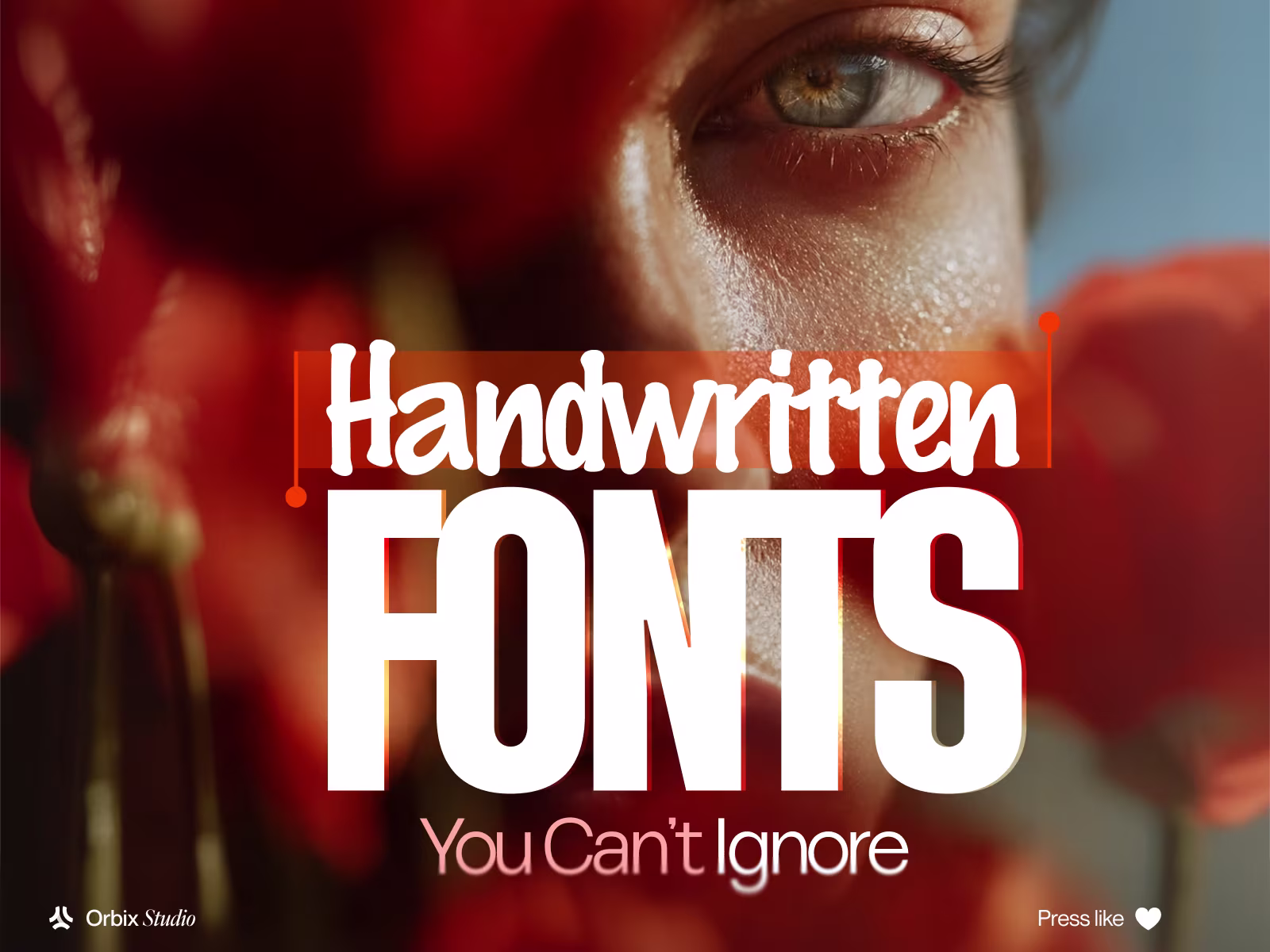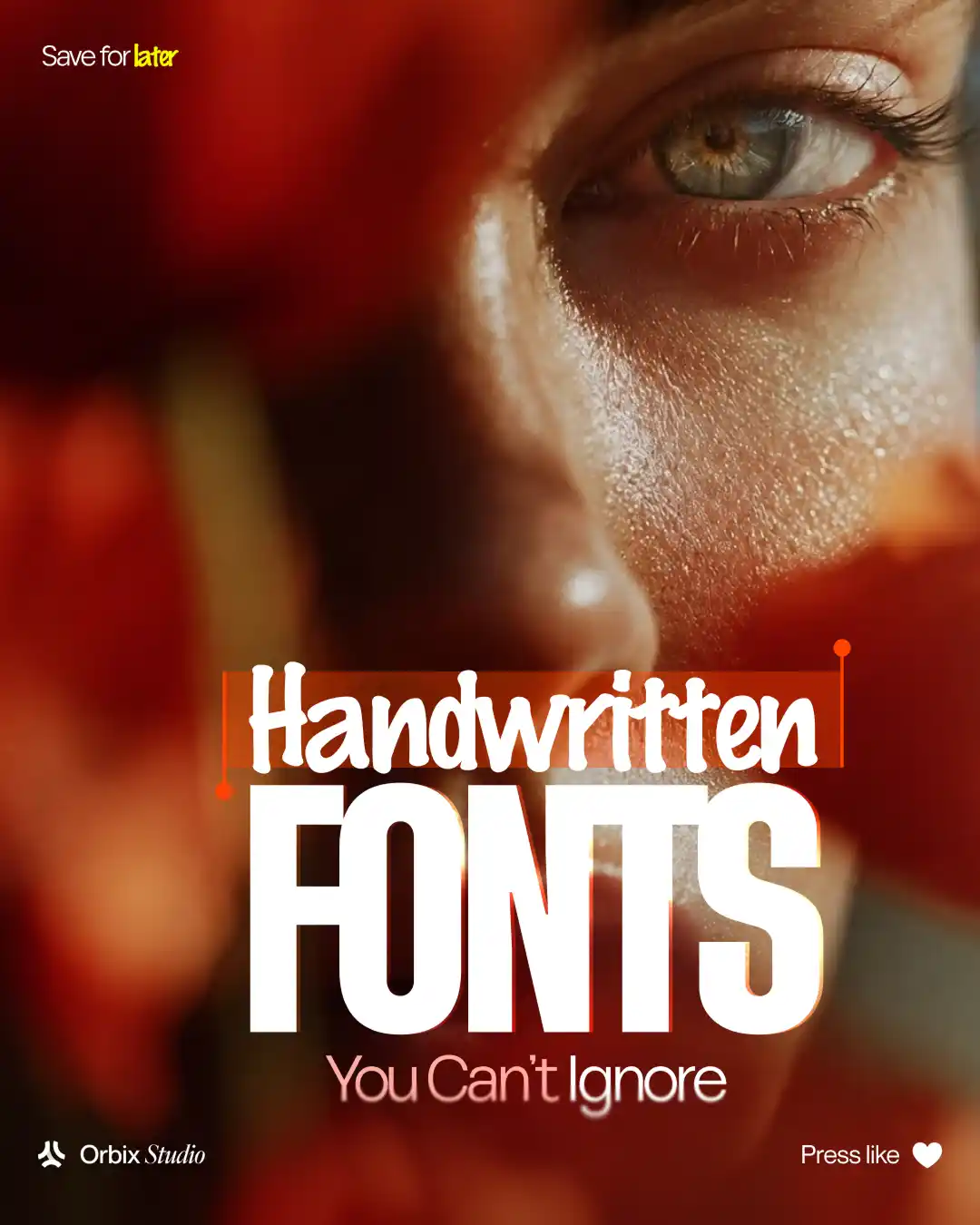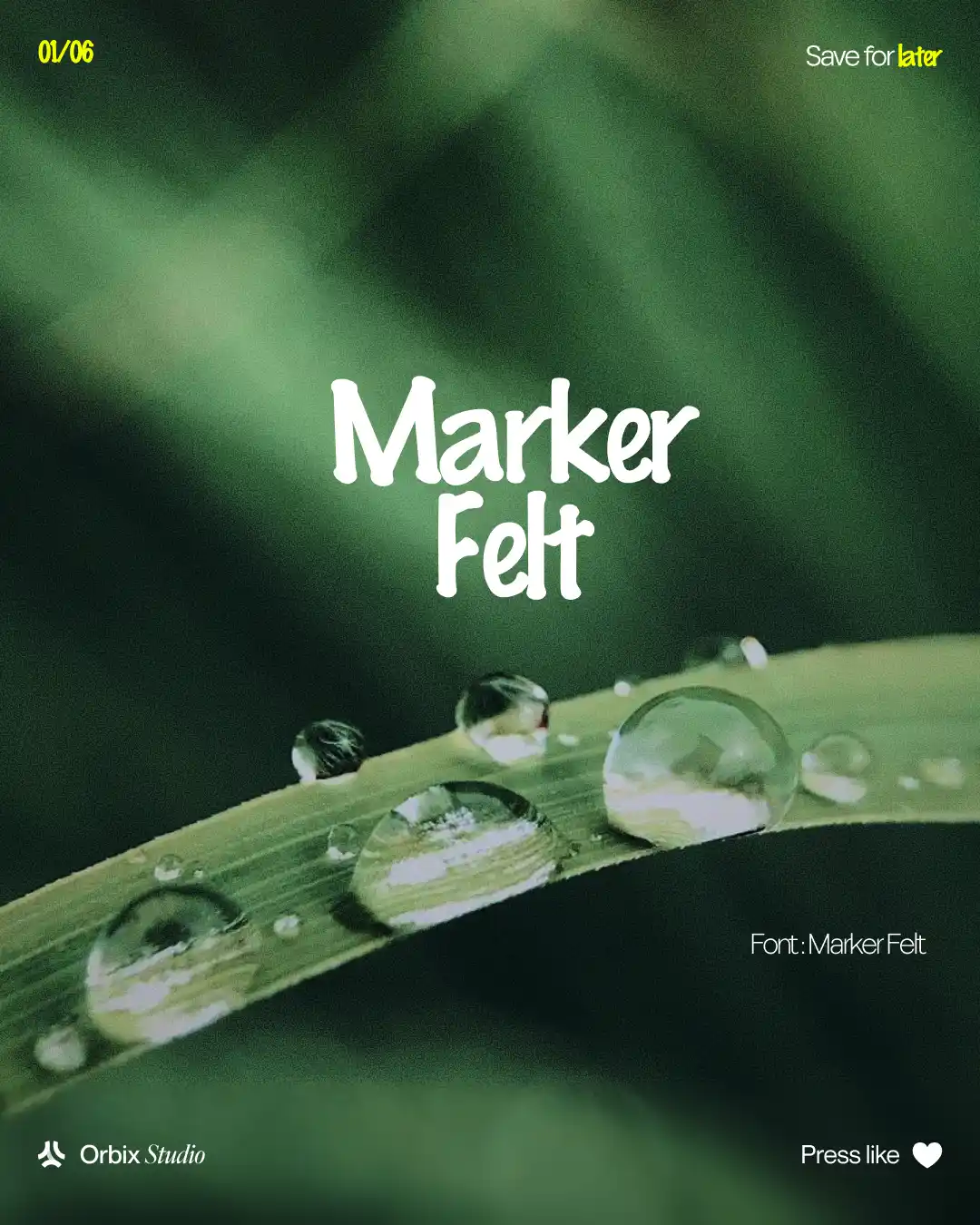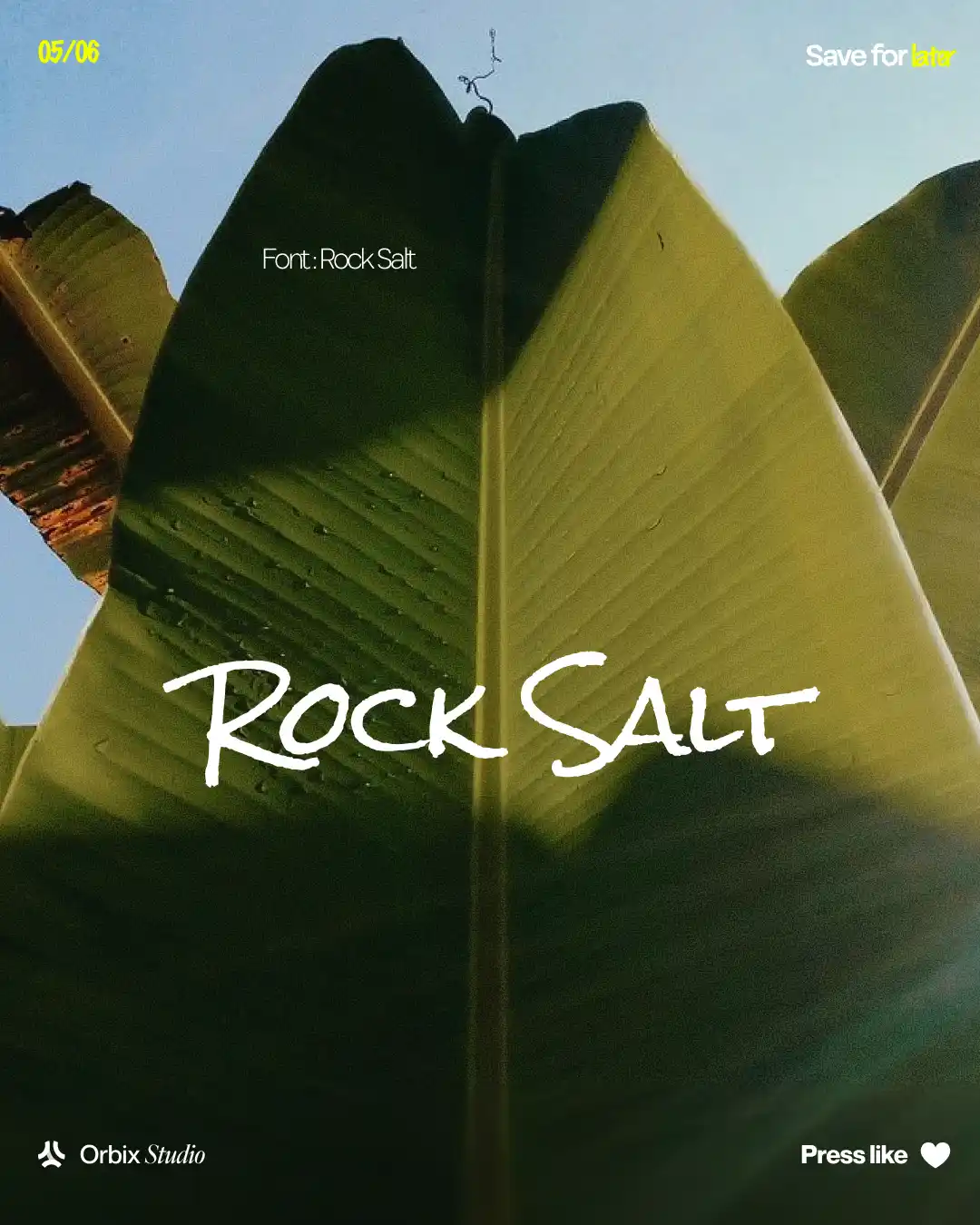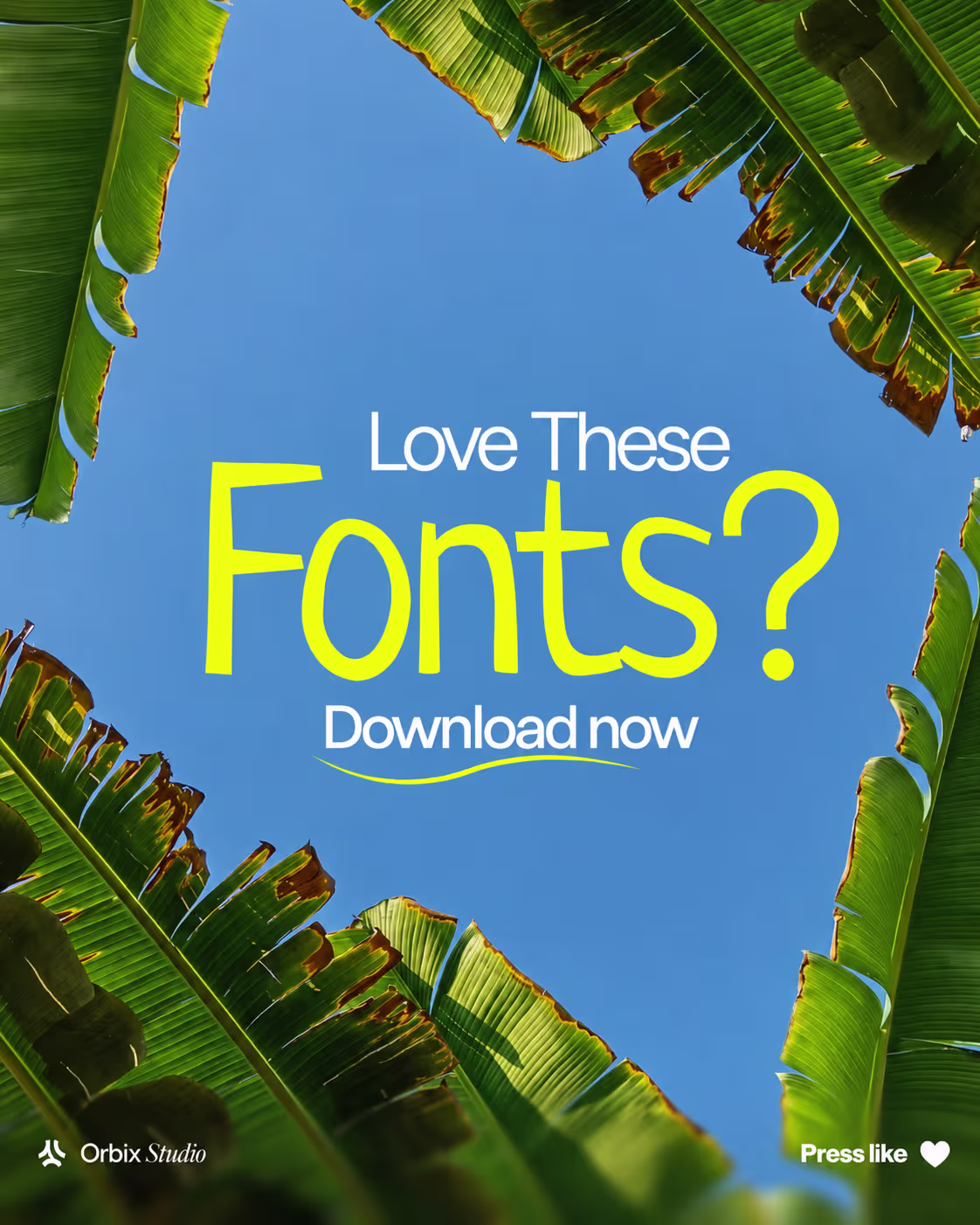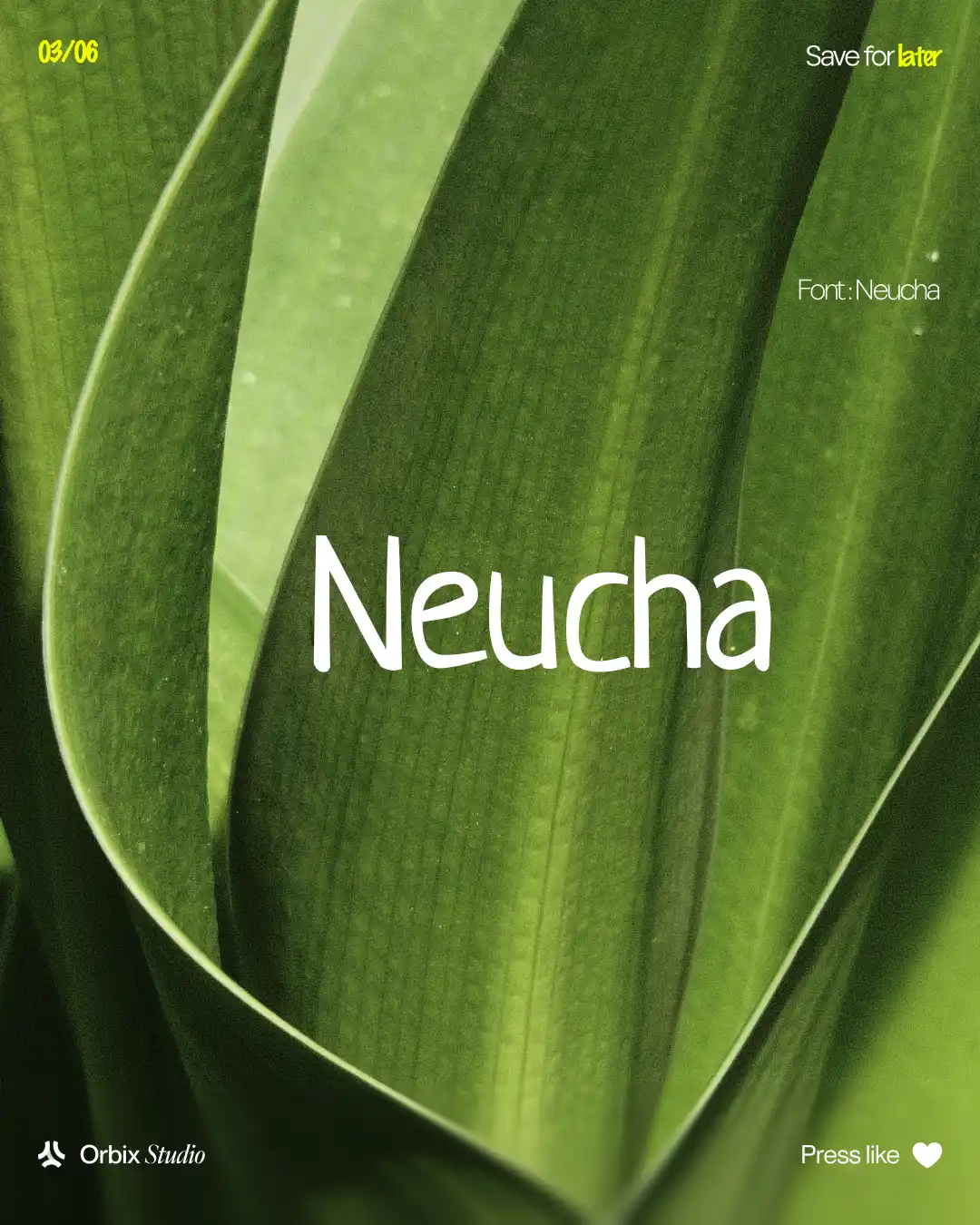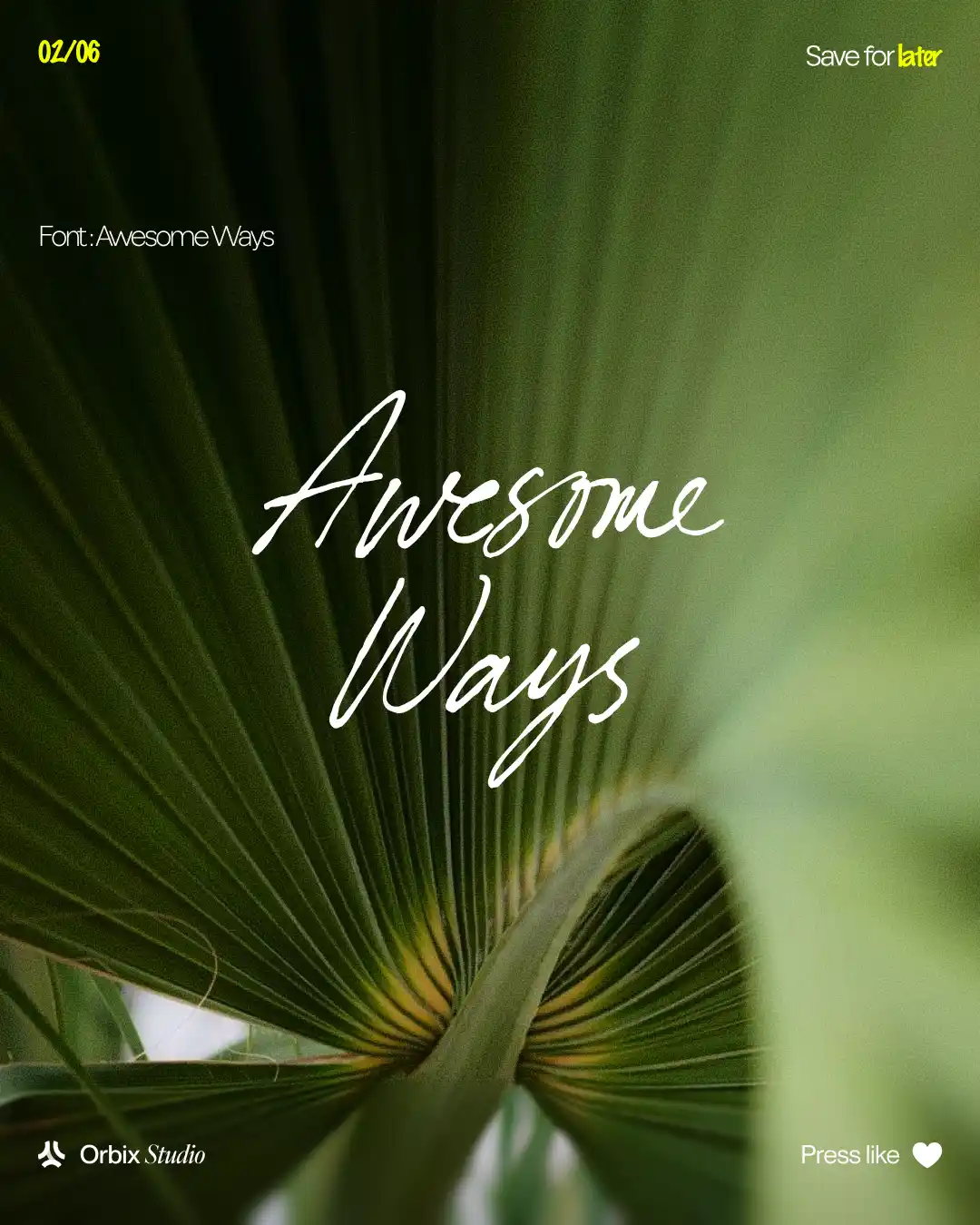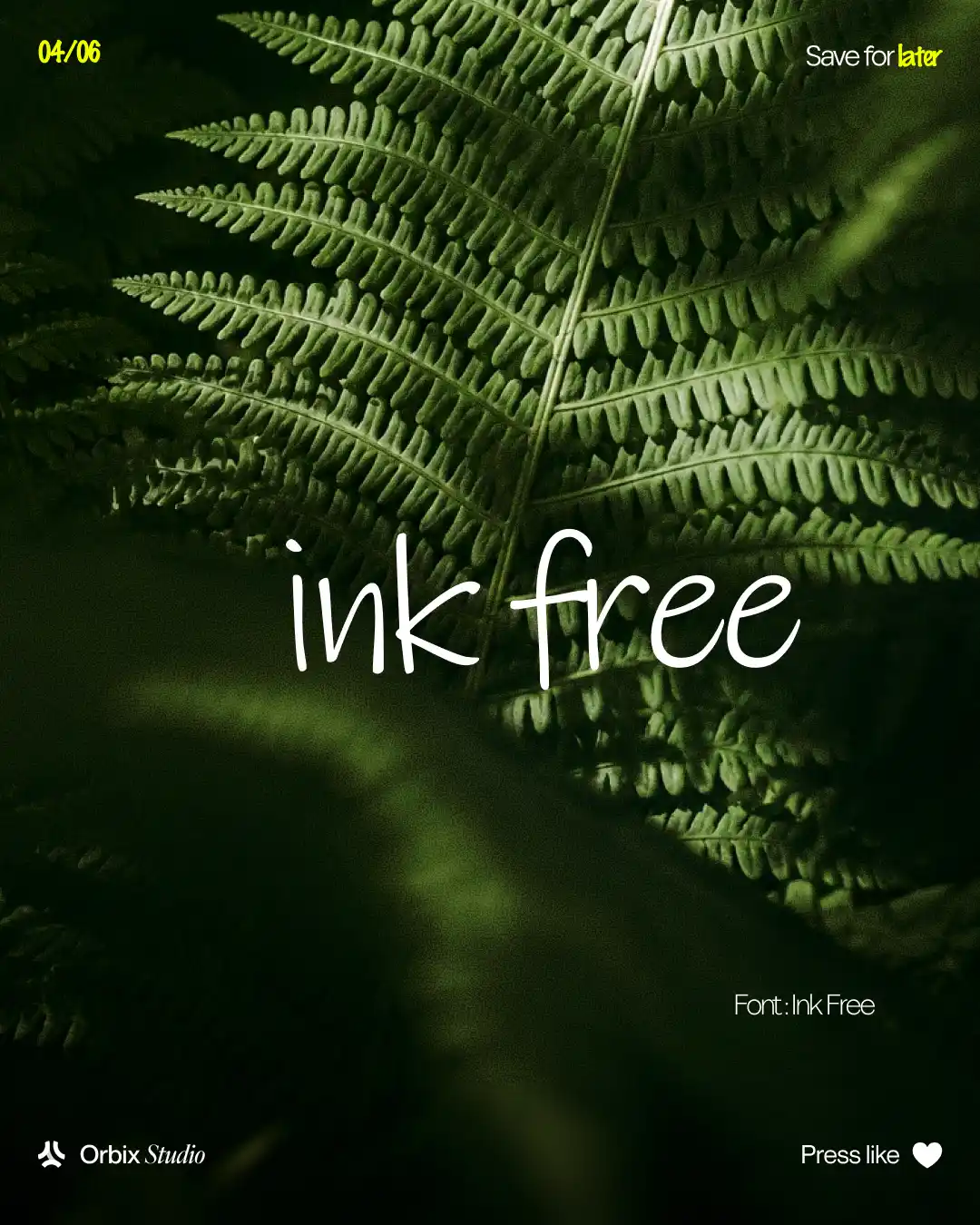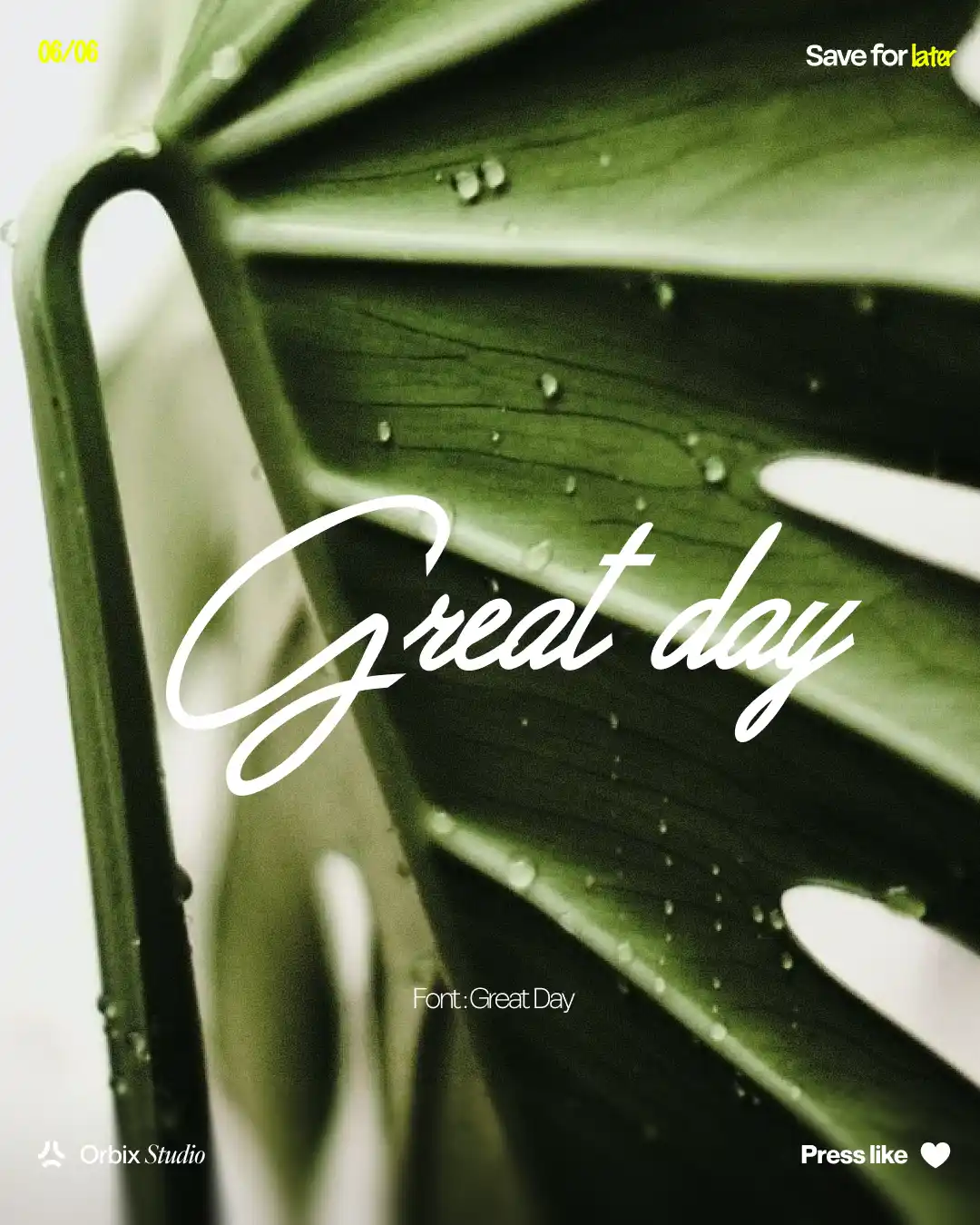
Free Handwritten FONTS
Free Handwritten Fonts is a free font resource from Orbix Studio, built for designers and brands who want a casual, personal script style instead of a standard sans-serif or serif typeface. It's a ready-to-download font suited to projects that need warmth and character, like brand accents, social content, and personal or lifestyle-driven design work.
The handwritten style makes it a natural fit for logos, quotes, headlines, invitations, and packaging details where a brand wants to feel approachable and human rather than corporate. Because it's offered as a free download, designers can test it directly in real layouts social posts, print pieces, websites before deciding where it fits their brand.
This resource is best suited to small businesses, lifestyle and wellness brands, social media designers, and freelance creatives who want an expressive script font without a licensing budget, typically used as an accent alongside a cleaner primary typeface.
Key Features:
- Casual, handwritten script style
- Adds warmth and personality to a design
- Works well for logos, quotes, and accents
Perfect For:
- Small businesses and lifestyle brands
- Social media and content designers
- Invitations, packaging, and print accents
- Freelance creatives wanting an expressive script font